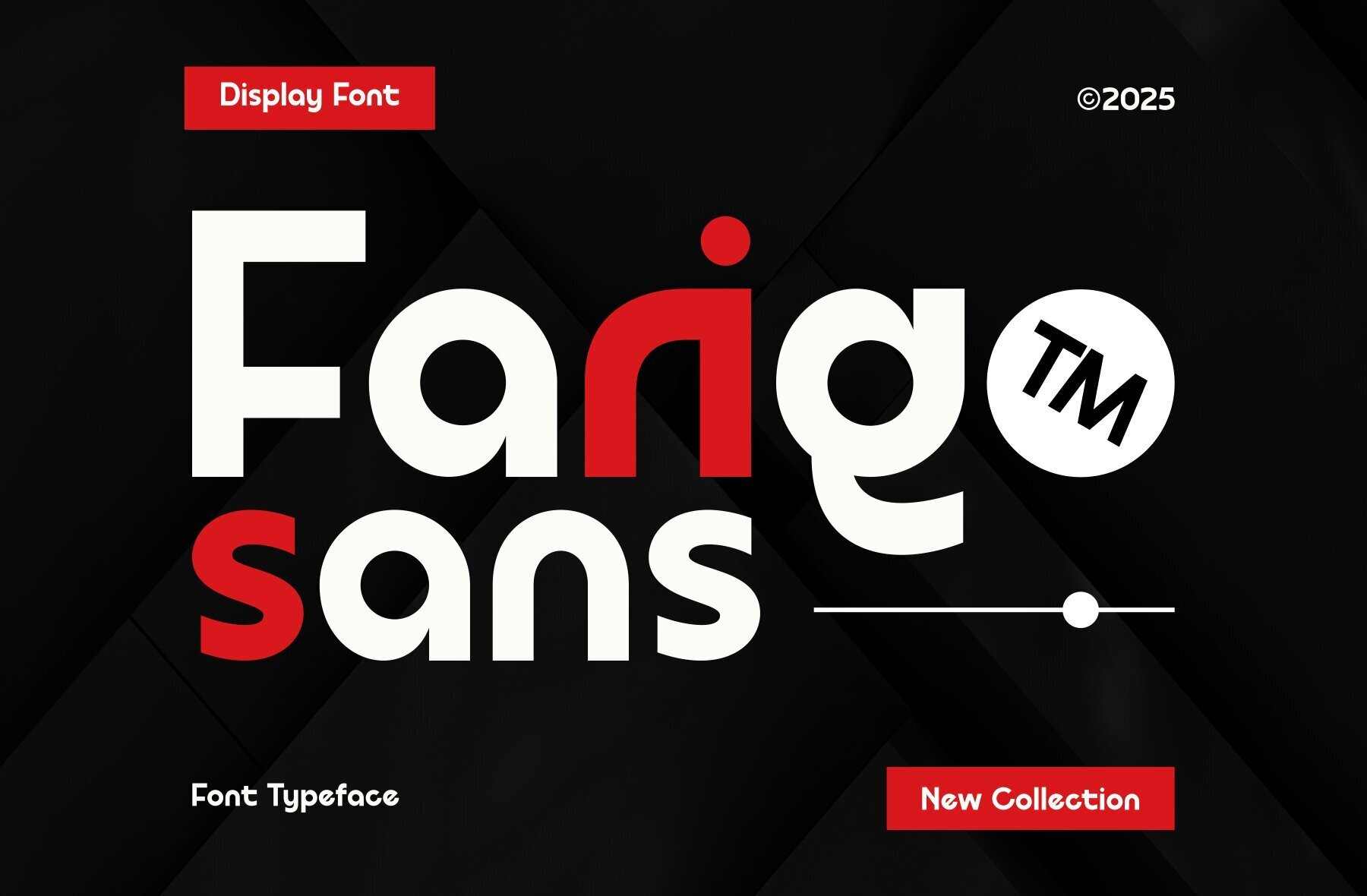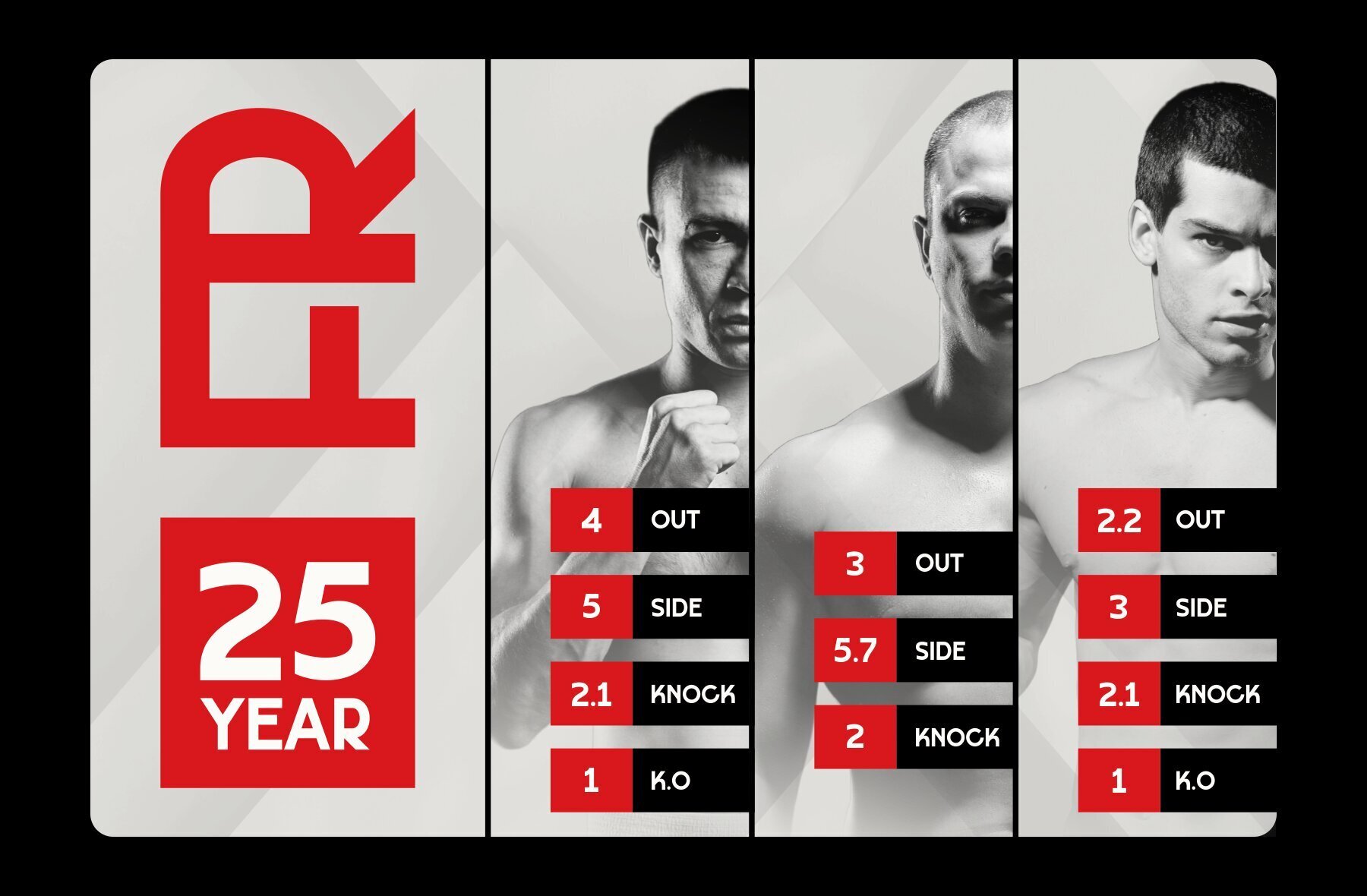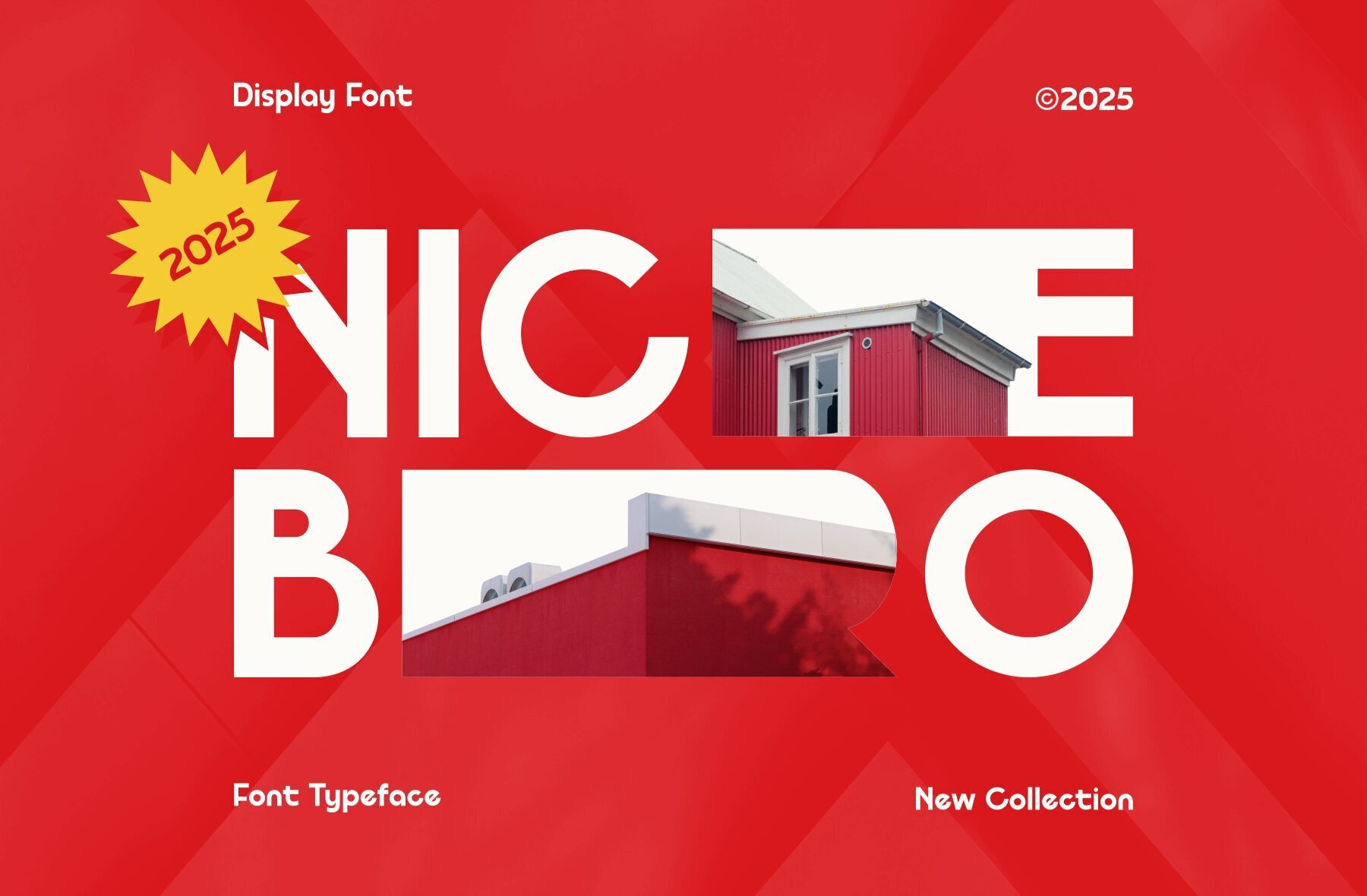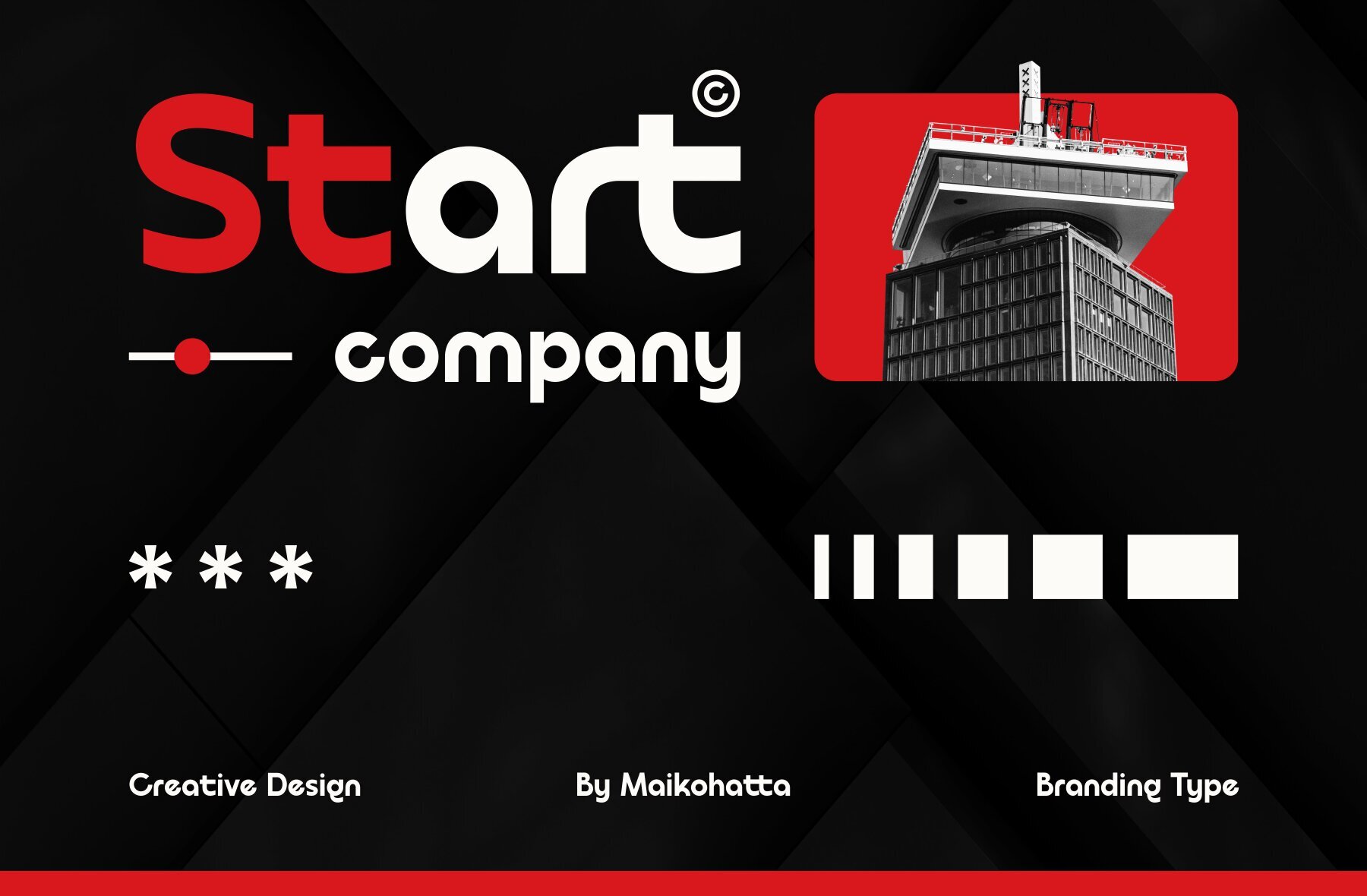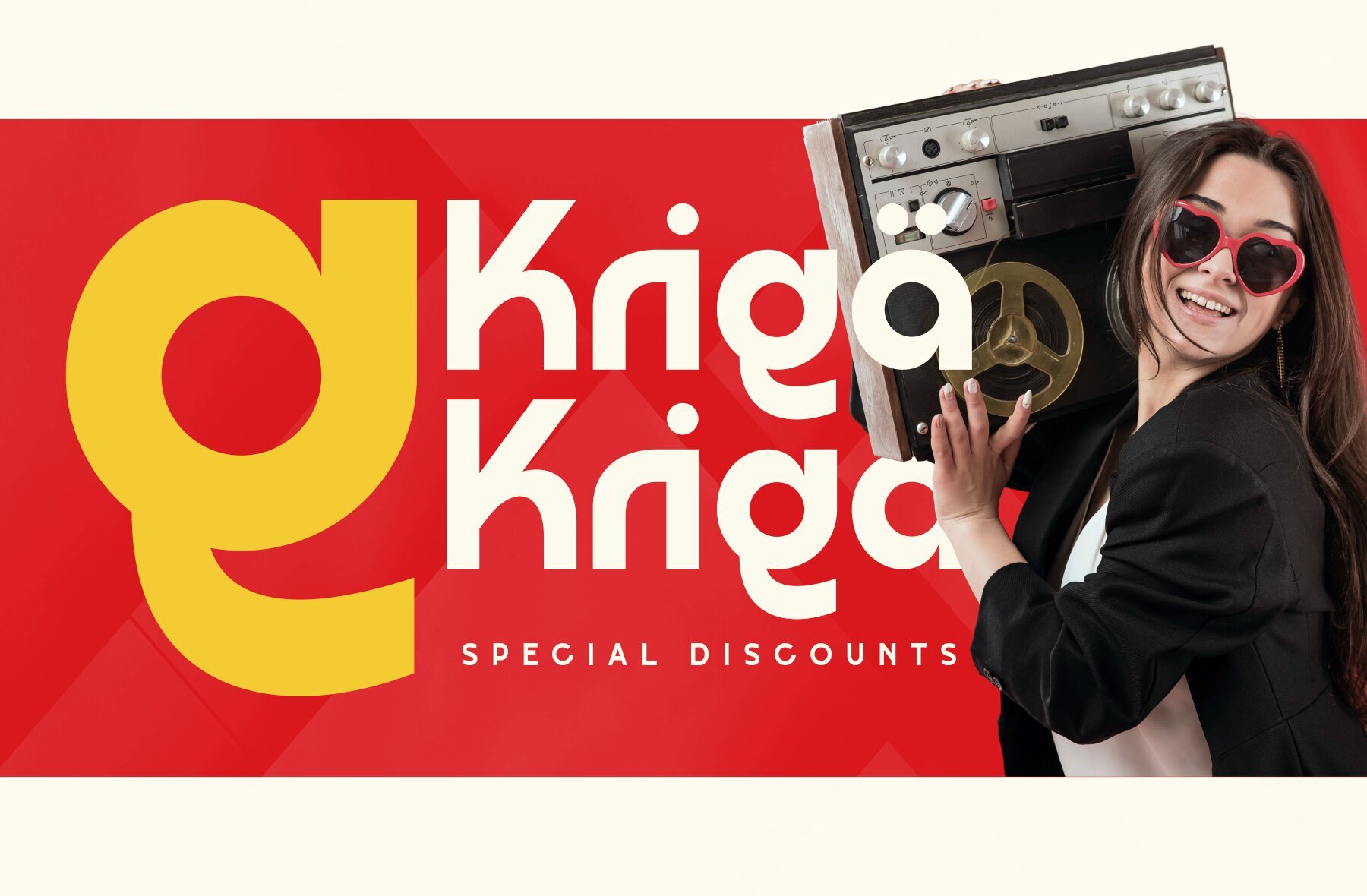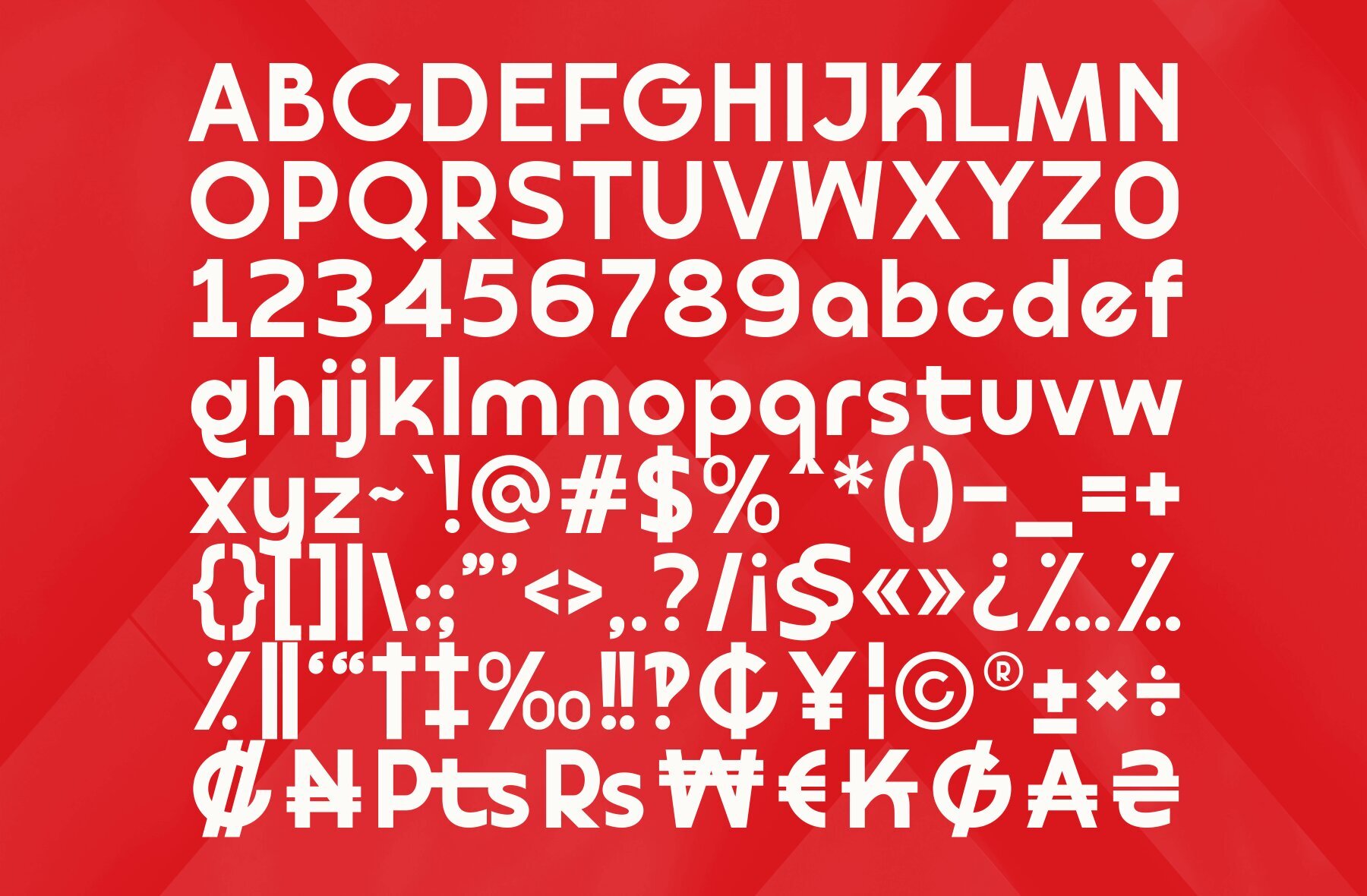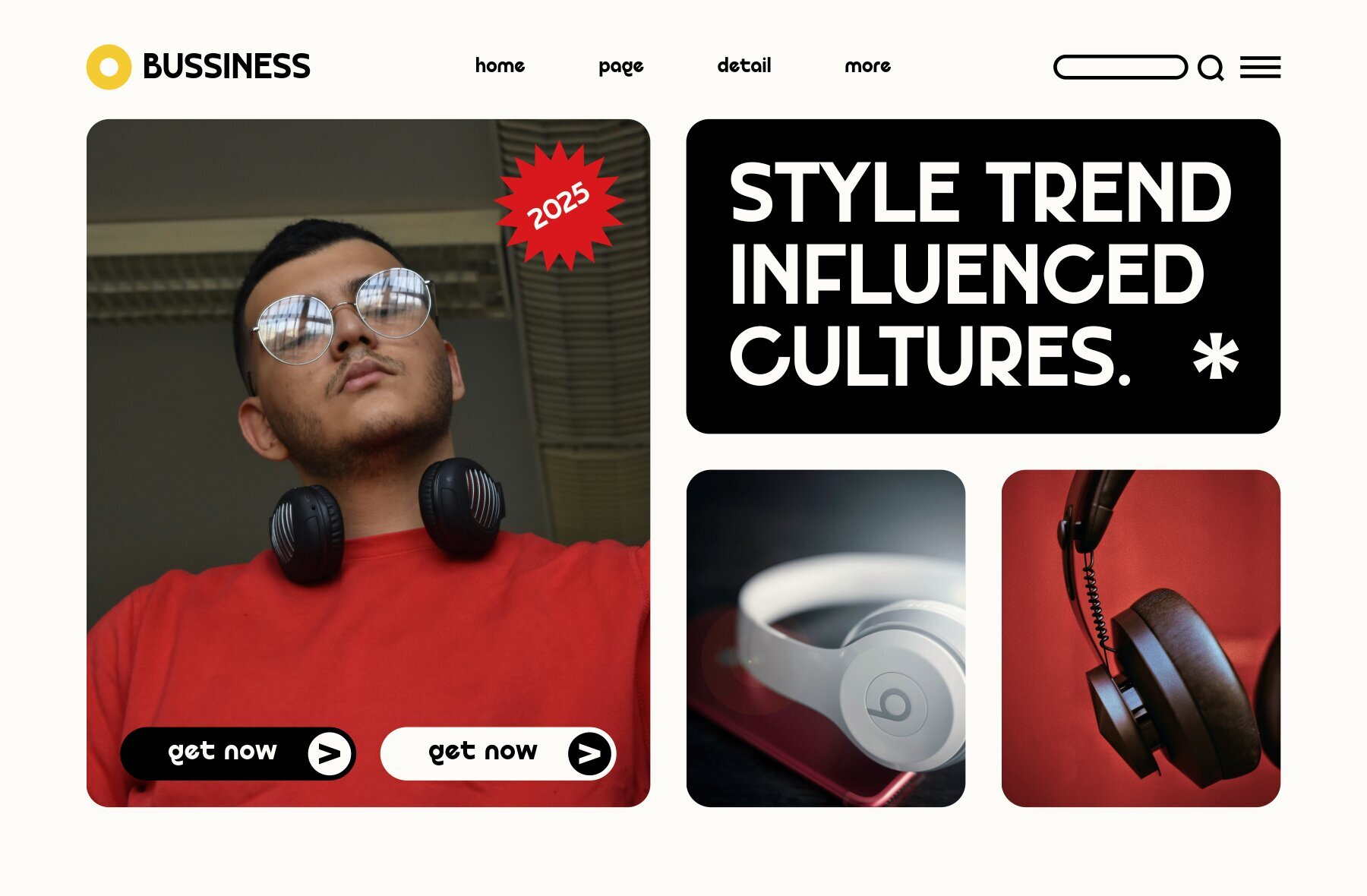
Farigo Font
Farigo
Farigo is a new modern sans serif typeface designed for versatility across various design needs. Its clean, contemporary aesthetics make it ideal for projects in graphic design and modern typography. With a focus on simplicity and visual appeal, Farigo promises a professional look that adapts seamlessly to different creative contexts.
Whether you’re crafting a brand identity or designing stunning digital content, Farigo offers the flexibility and elegance essential for today’s design landscape.